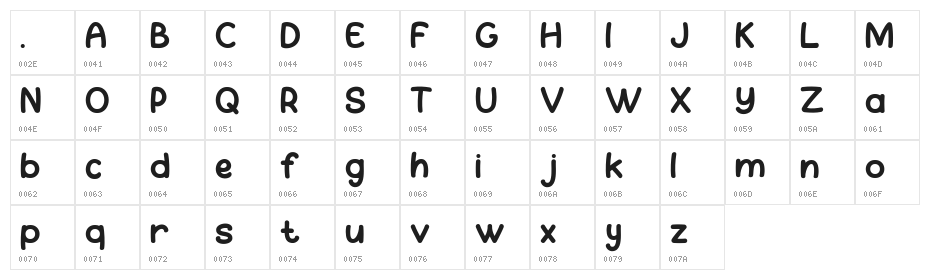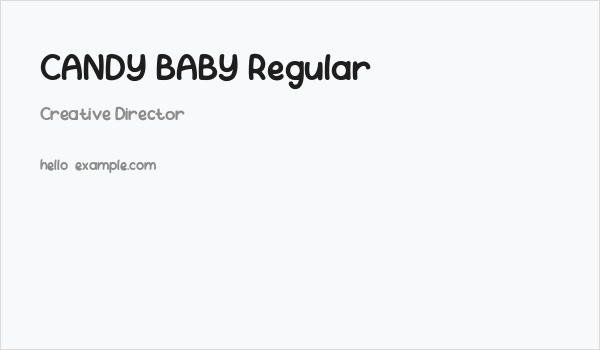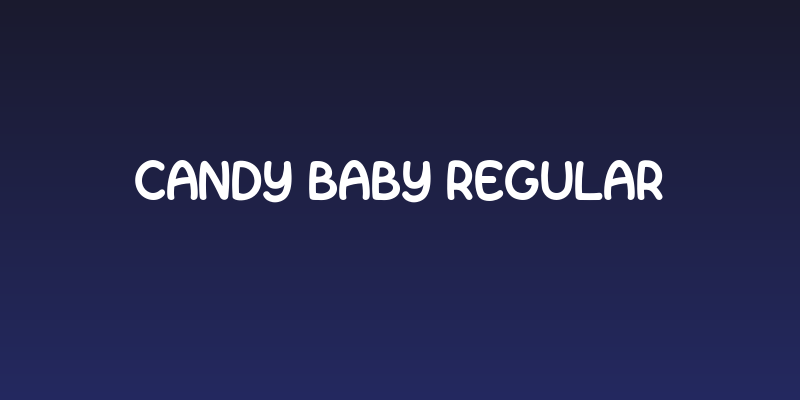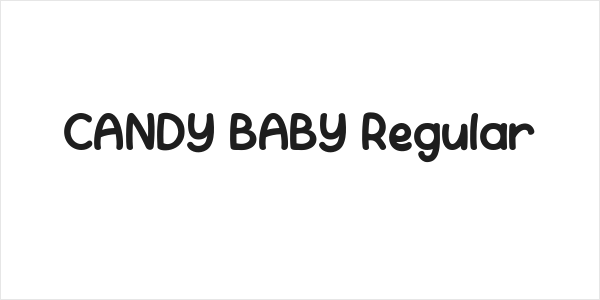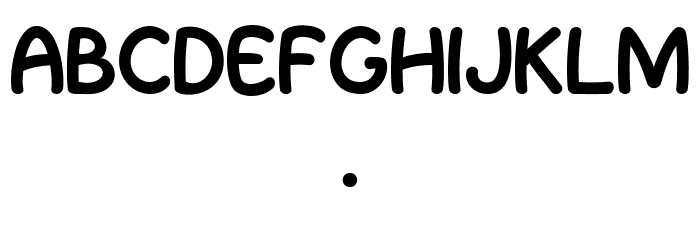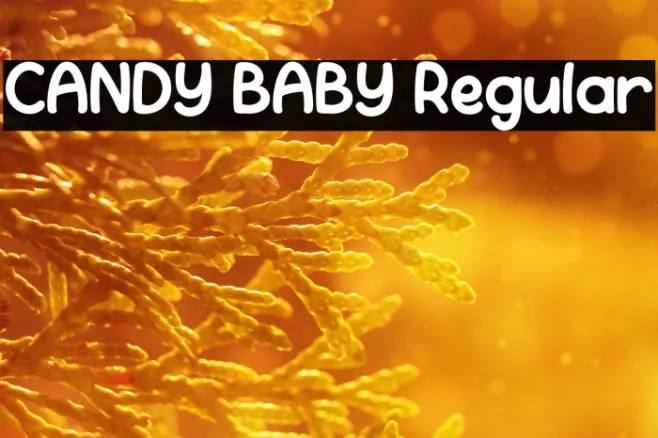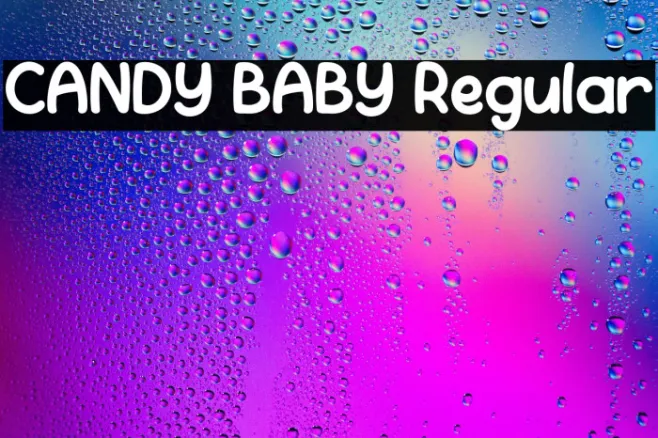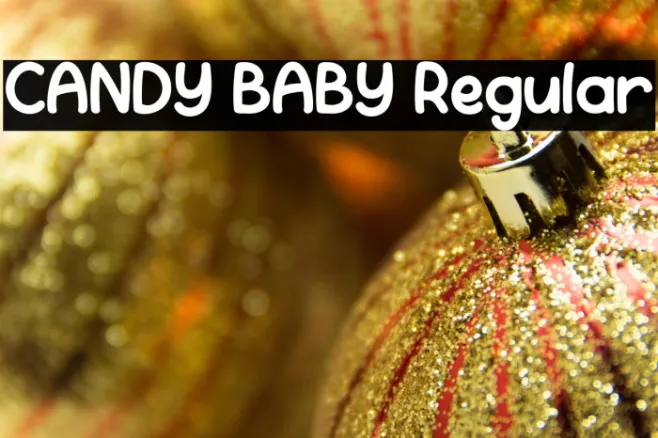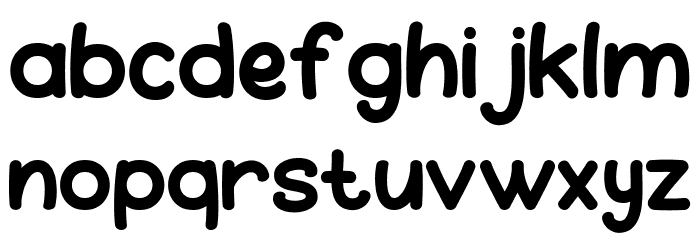
CANDY BABY Regular Font
This playful and rounded font exudes a sense of fun and whimsy, making it ideal for projects that require a lighthearted touch. The characters are bold and slightly inflated, giving them a soft, approachable appearance. The uniform stroke width and smooth curves contribute to its friendly and inviting style. The font maintains a consistent baseline and x-height, ensuring readability while adding a touch of personality. Its unique charm is perfect for capturing attention in creative and informal settings.
| Overall Style | Playful, Fun |
| Use Case | Headlines, Logos, Informal Text |
| Proposed Projects | Ideal for children's books, playful branding, party invitations, and casual social media graphics. |